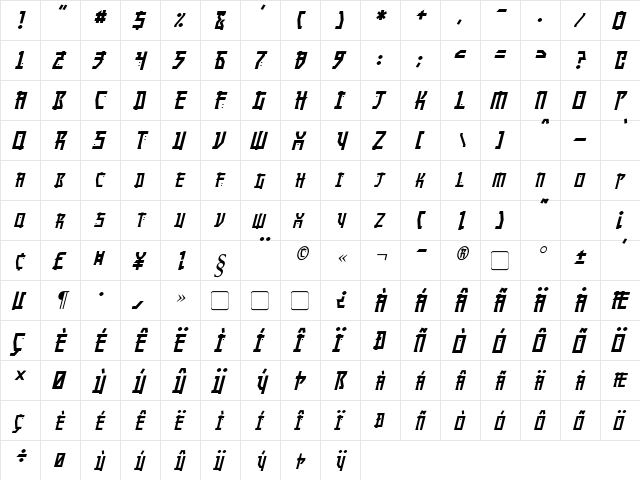
Manga Italic
Italic ·  Neale Davidson ·
DesignerNeale Davidson
Design Context for Manga Typeface
Manga is a composed and adaptable typeface that performs quietly and consistently across a wide range of design contexts. The slanted form adds forward momentum and visual energy.
Pro Tip: Use Manga for emphasis, pull quotes, and subheadings where its slanted energy can add rhythm to the layout.